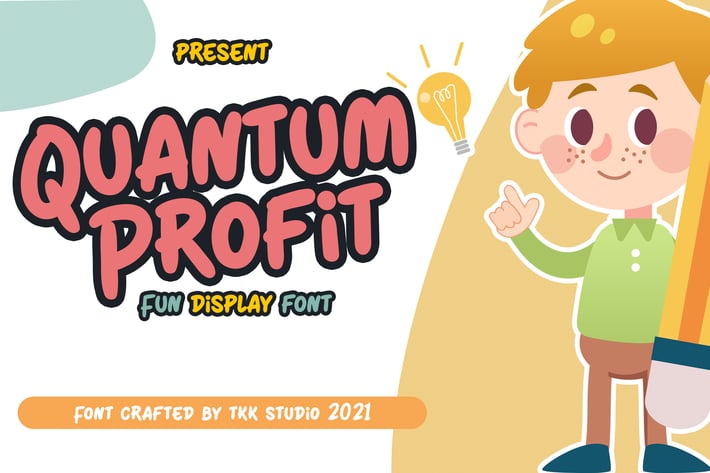
Quantum Profit - Fun Display Font
Quantum Profit is a bouncy, kid-friendly display typeface with rounded curves, low contrast, and an expressive flow—designed to bring joyful energy to every visual. Its cartoon-inspired letterforms radiate warmth and creativity, making it perfect for anyone crafting playful brand stories. Whether you're designing a children’s app interface, an educational poster, or a vibrant Instagram announcement, Quantum Profit’s energetic personality guarantees instant appeal. Its letter shapes are soft and approachable, ideal for any design that speaks to fun, friendliness, and imagination.
Quantum Profit isn’t just visually cute—it’s emotionally resonant. Designed with educators, content creators, and playful brands in mind, this font gives your message a tone that’s uplifting, clear, and engaging. Its cheerful rhythm works wonderfully in posters, birthday invites, storybook covers, and kids' learning materials—ensuring your audience feels invited to read, play, and interact. Want a friendly tone for your app UI or game interface? Quantum Profit turns basic text into visual smiles.
Why You’ll Love It
✅ Visually Engaging – Rounded terminals and bubbly structure create eye-catching layouts with ease
✅ Easy to Read – Great legibility for kids, making it ideal for classrooms and young audiences
✅ Flexible for Creatives – Perfect for posters, mobile games, event signage, and storytelling